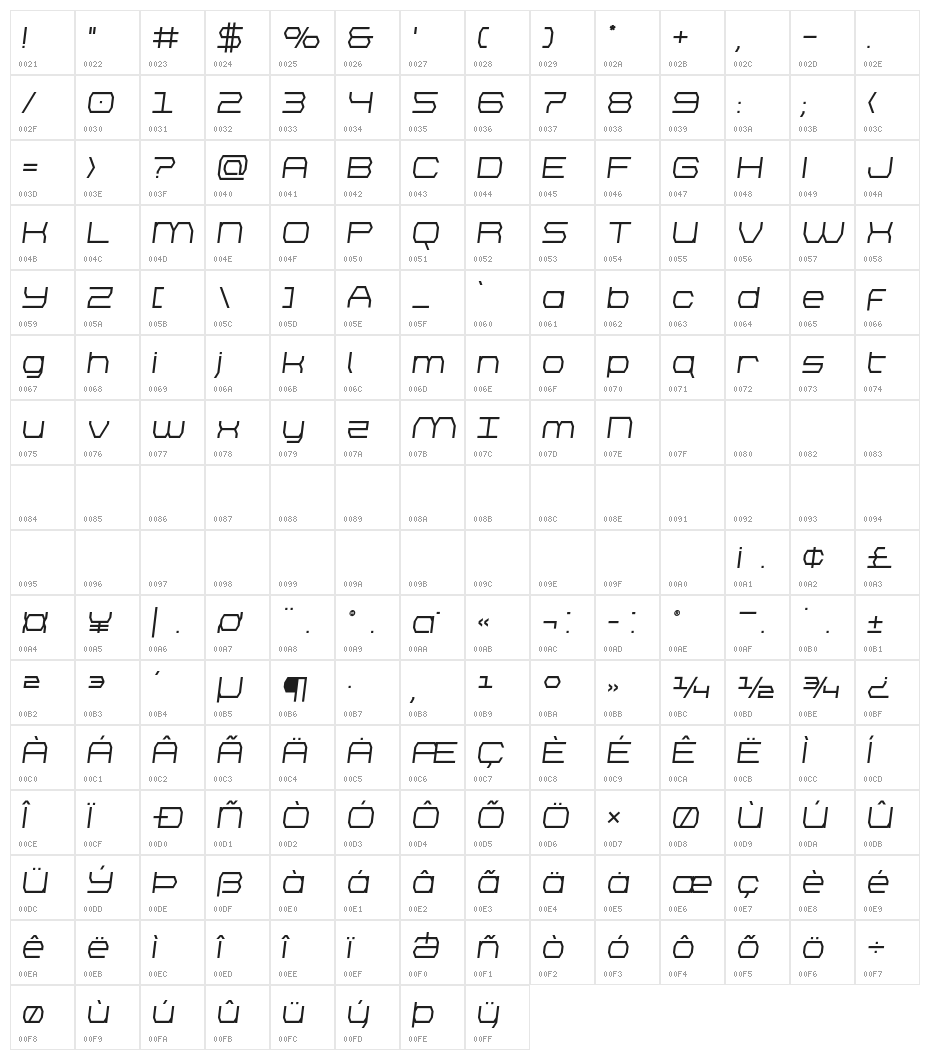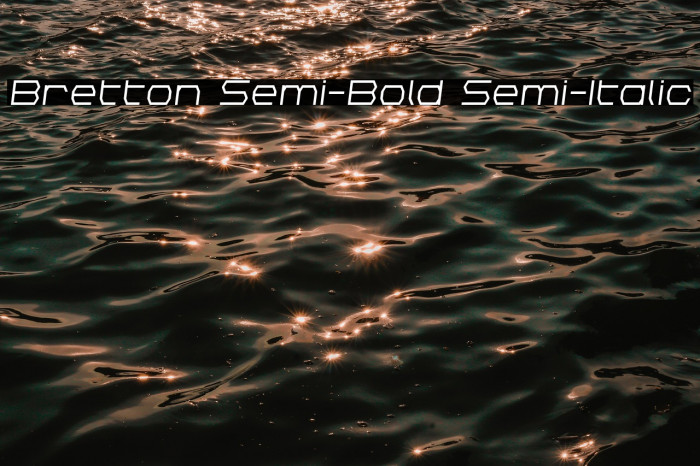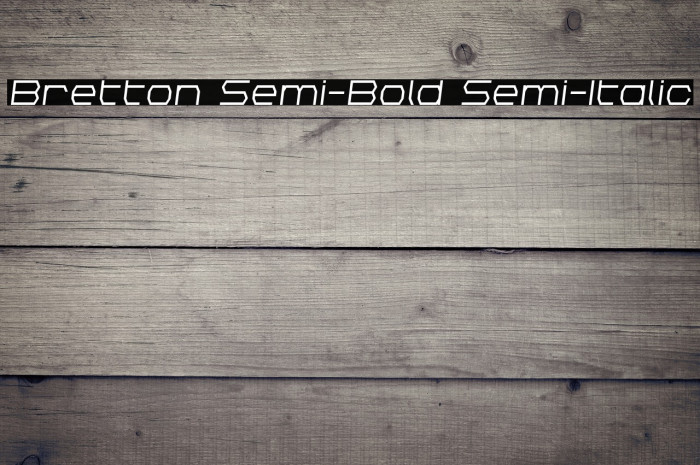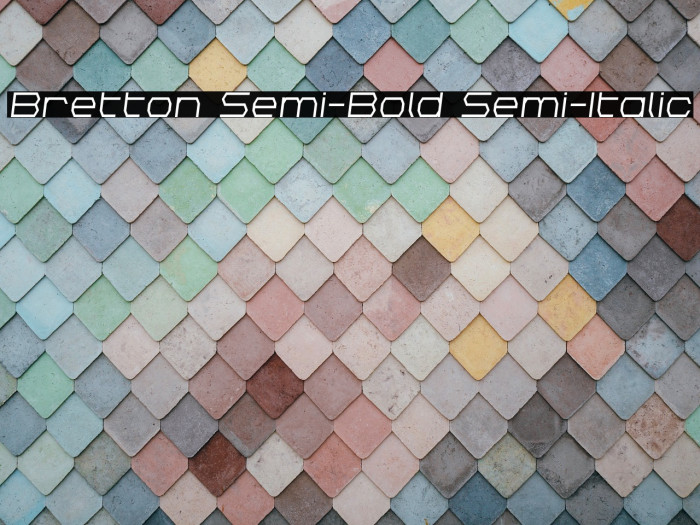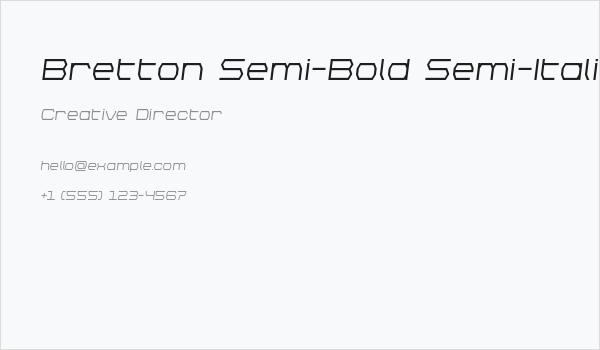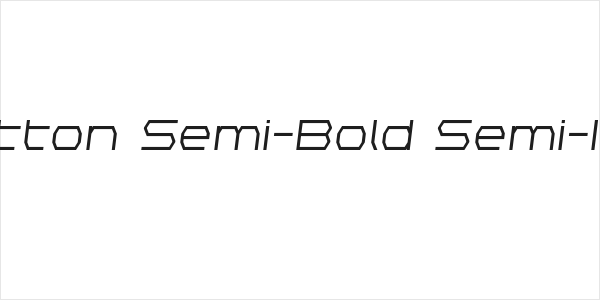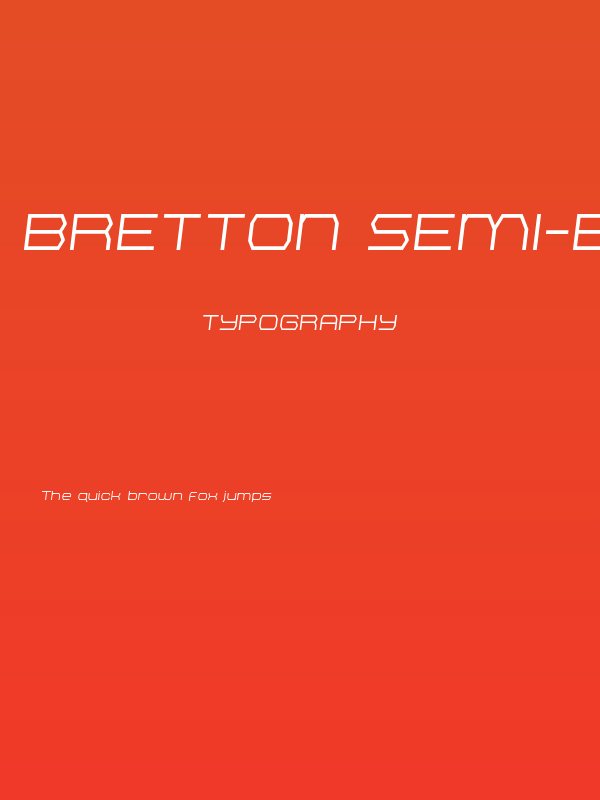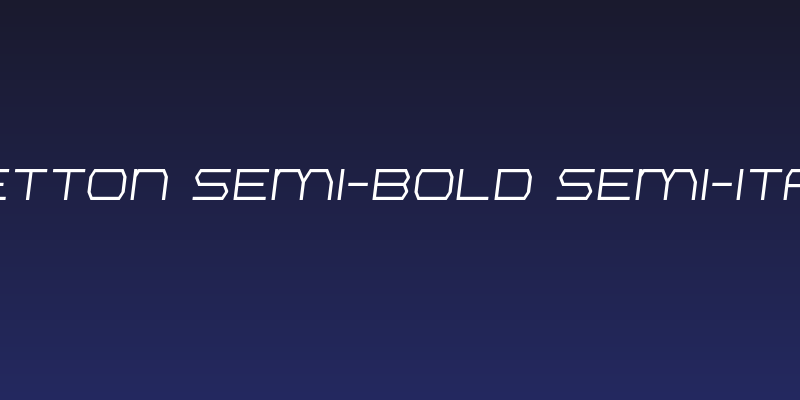
Bretton Semi-Bold Semi-Italic Font
Bretton Semi-Bold Semi-Italic Description
This font features a modern, geometric design with a semi-bold weight and semi-italic style. The characters are constructed with angular lines and sharp edges, giving it a futuristic and technical appearance. The uppercase and lowercase letters maintain a consistent height, while the numerals and special characters follow the same angular theme. The font's unique structure makes it stand out, with a slight slant that adds a dynamic feel. It is well-suited for projects that require a contemporary and edgy look.
| Overall Style | Modern, Futuristic |
| Use Case | Headlines, Logos, Digital Interfaces |
| Proposed Projects | Ideal for technology branding, futuristic designs, digital interfaces, and modern advertising. |